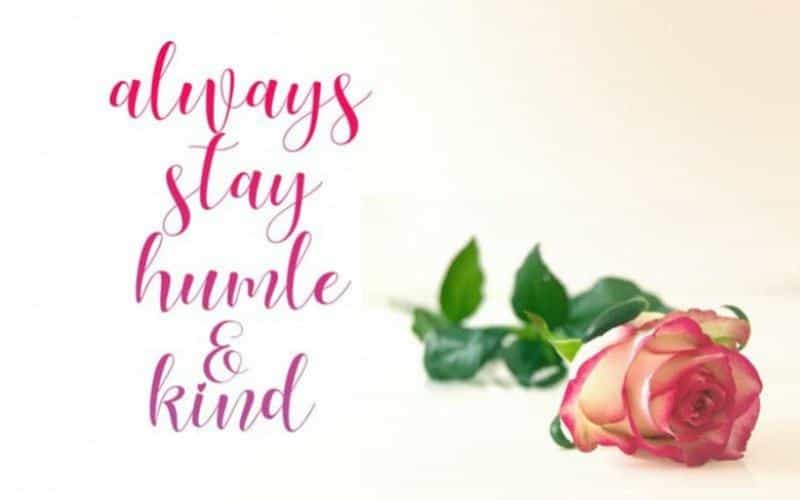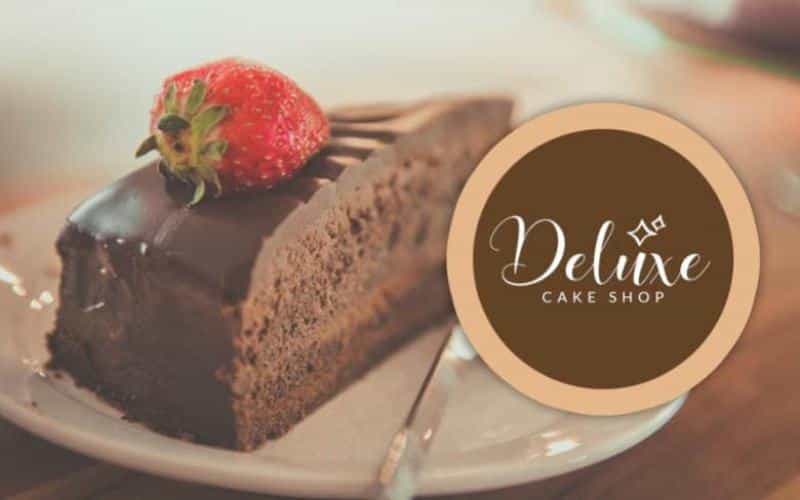
Discover Lovea Calligraphy Font, part of the Commercial Calligraphy collection—a versatile and unique font perfect for adding a personal touch to your projects. Download it for free and enjoy crafting designs with style, from invitations to social media posts. This font is available exclusively for personal use, giving you the freedom to create without limits. Unlock your creativity with Lovea Calligraphy Font today!
The Lovea script font is a wonderful calligraphy, up-to-date & modern style . Lovea Script Font is an ideal font for logo, branding, greeting card, poster and any design that you create.